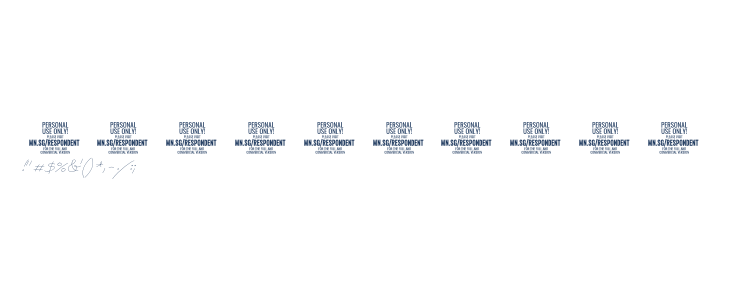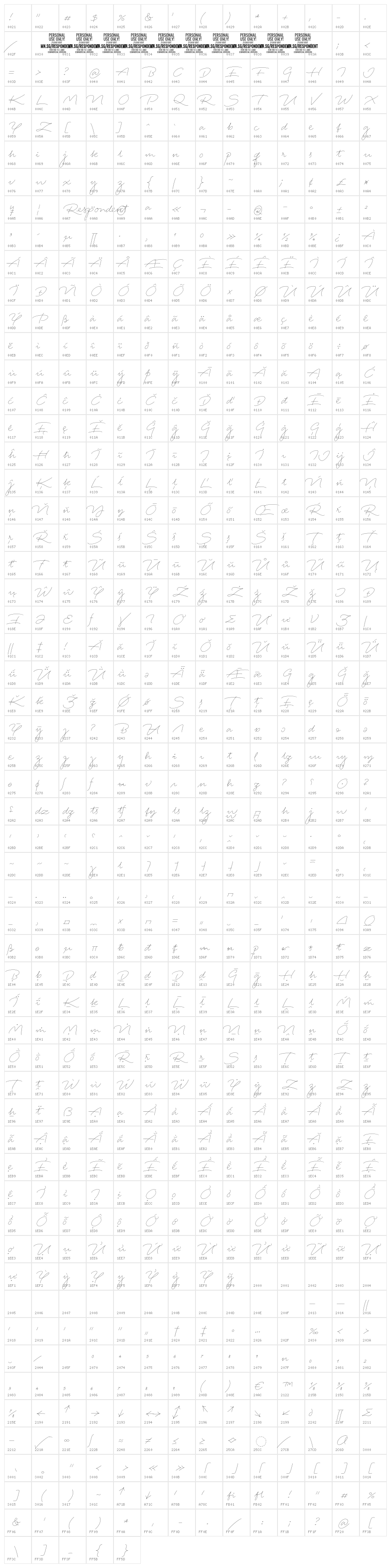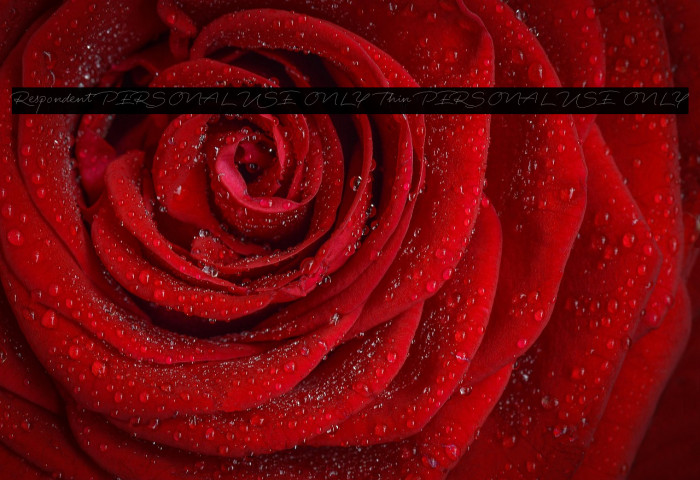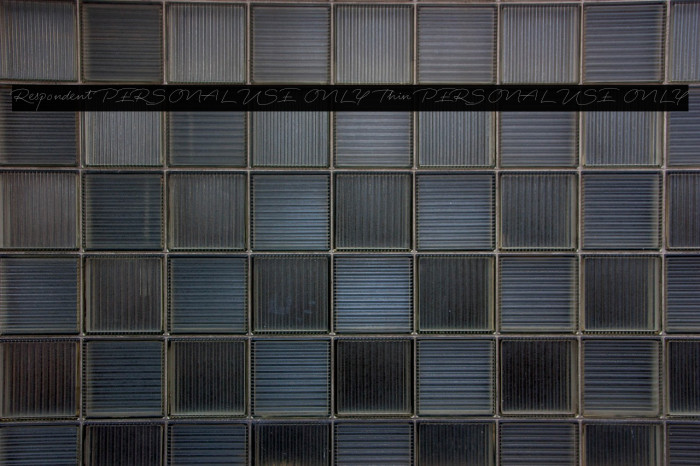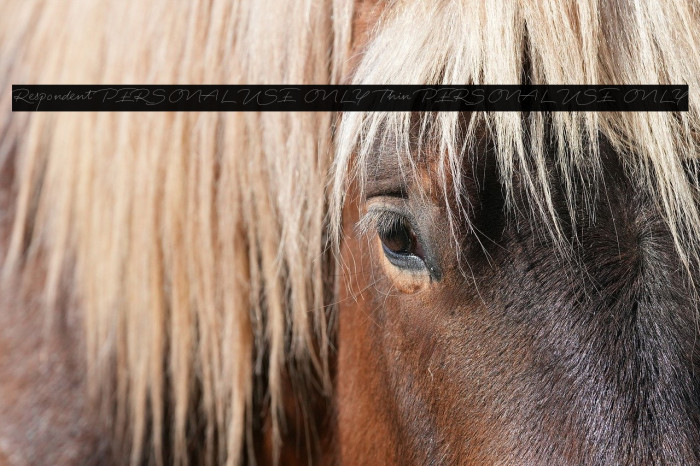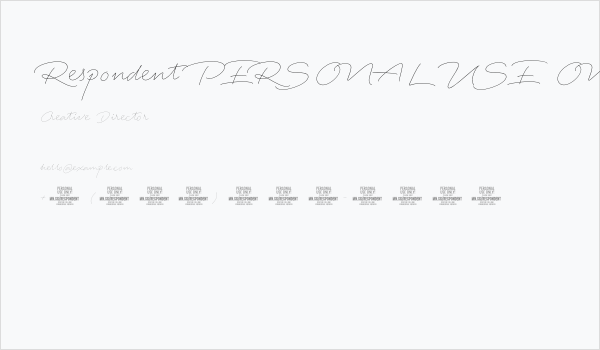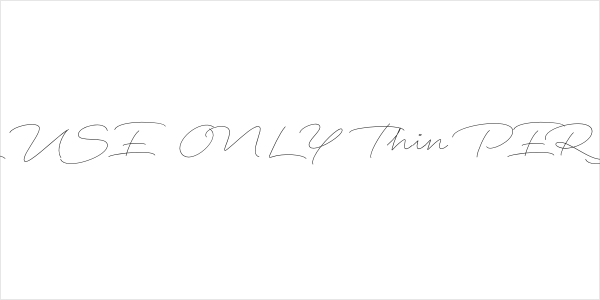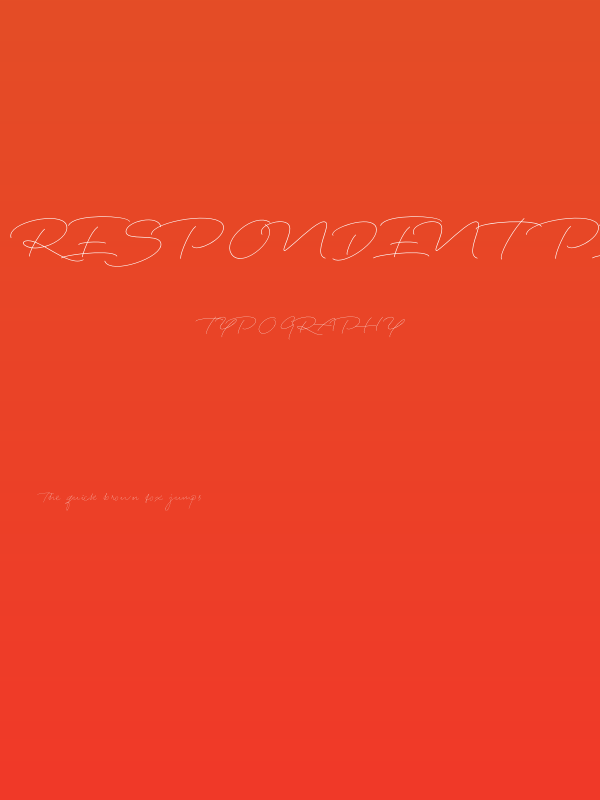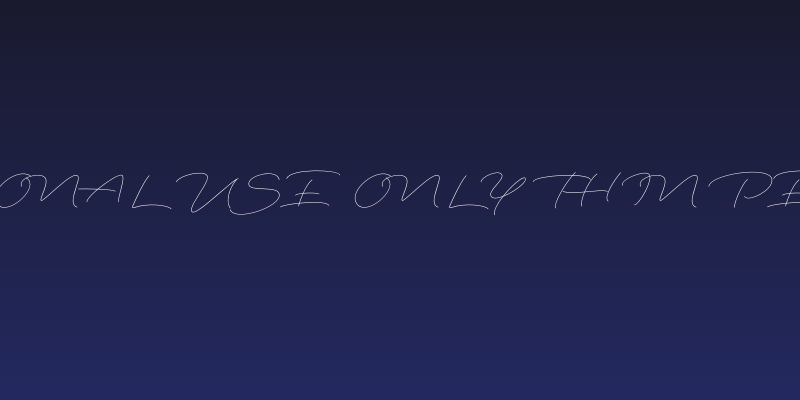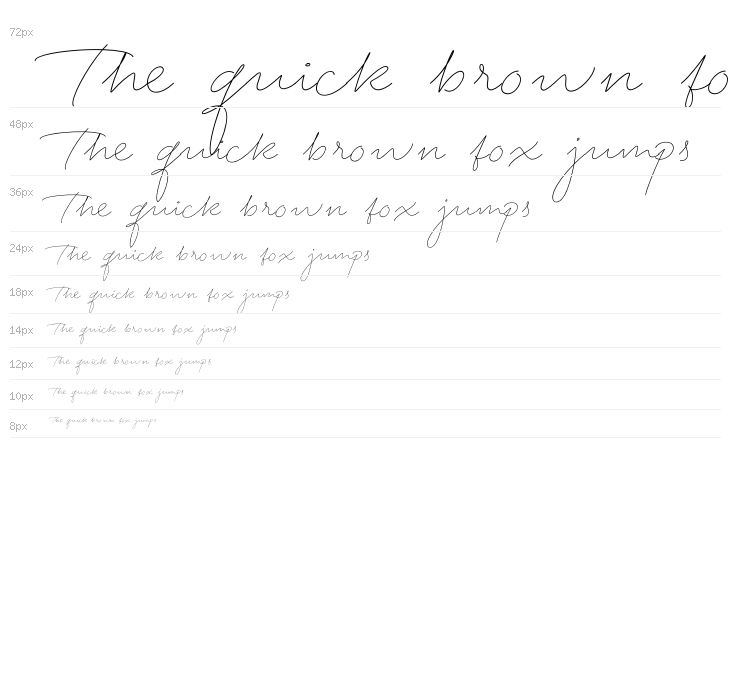
Respondent PERSONAL USE ONLY Thin PERSONAL USE ONLY Font
Respondent PERSONAL USE ONLY Thin PERSONAL USE ONLY Description
This font features an elegant, flowing script style with thin, delicate strokes that mimic the fluidity of handwriting. The uppercase letters are slightly more structured, while the lowercase letters exhibit a graceful, cursive form. The characters are connected, enhancing the handwritten aesthetic. The numbers and special characters maintain the same thin, elegant style, ensuring consistency across all glyphs. This font exudes a sense of sophistication and refinement, making it suitable for projects that require a personal touch.
| Overall Style | Elegant, Handwritten |
| Use Case | Logos, Invitations, Personal Correspondence |
| Proposed Projects | Ideal for wedding invitations, personal letters, branding for luxury products, and elegant stationery. |